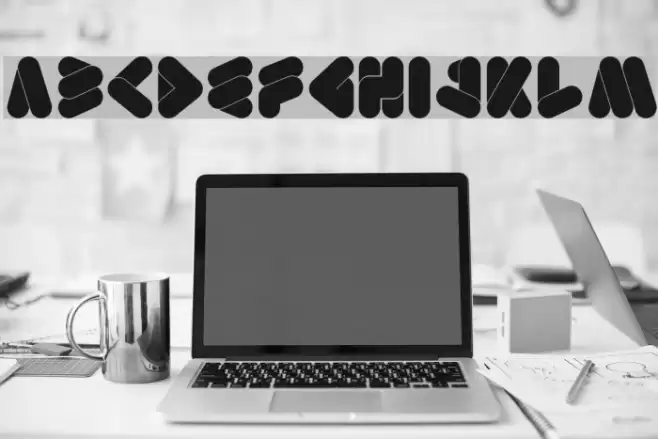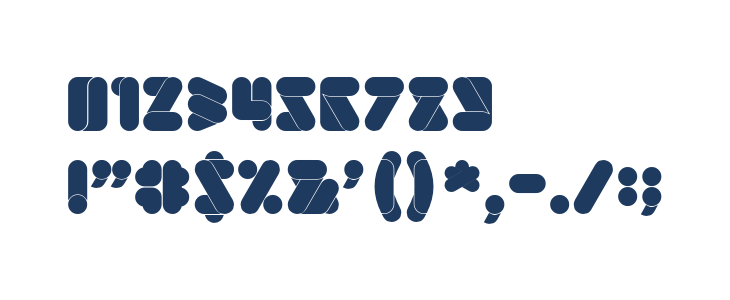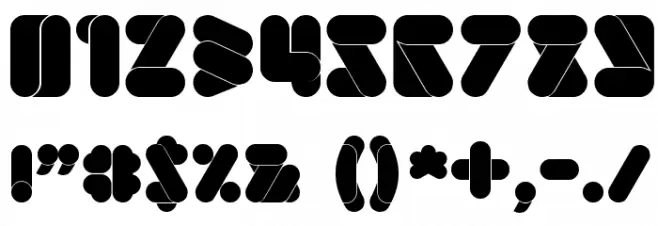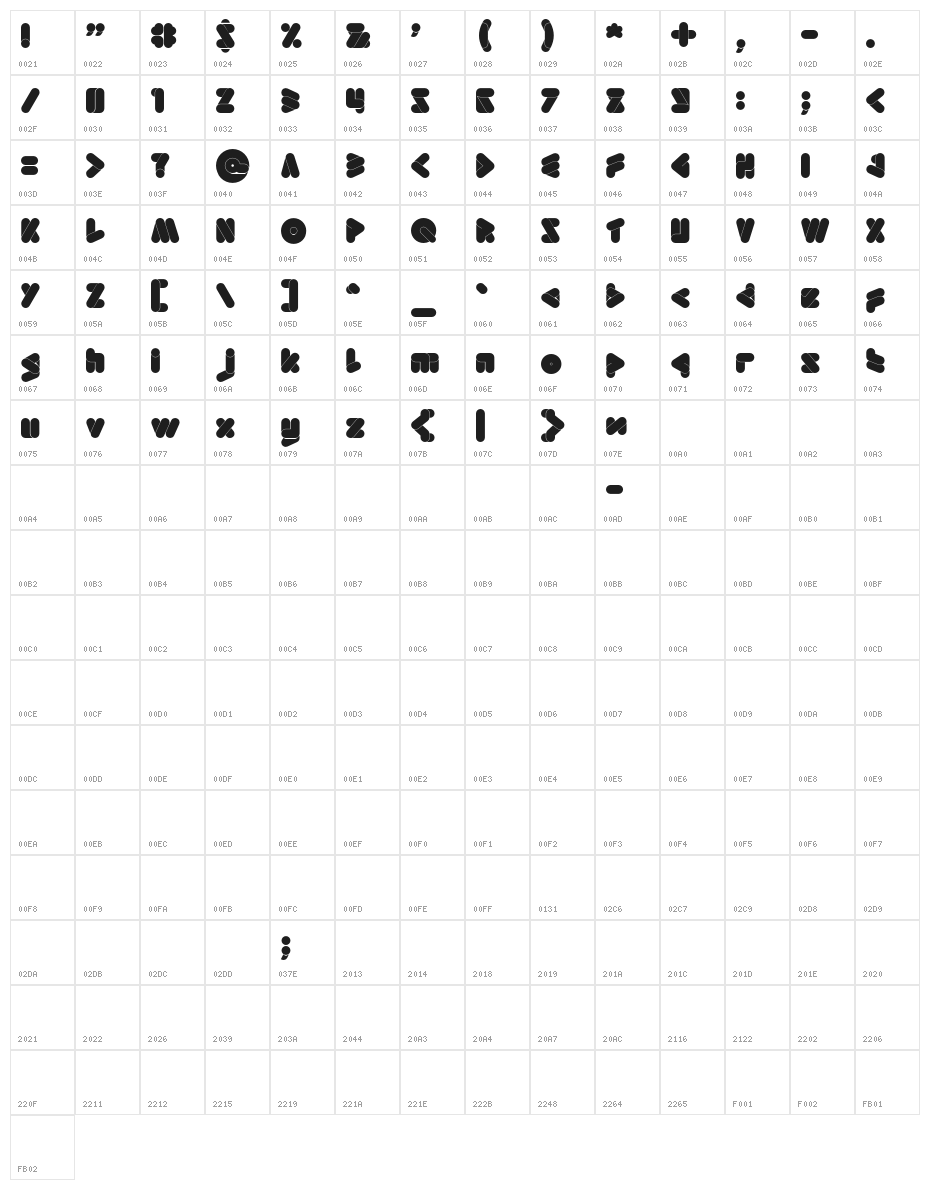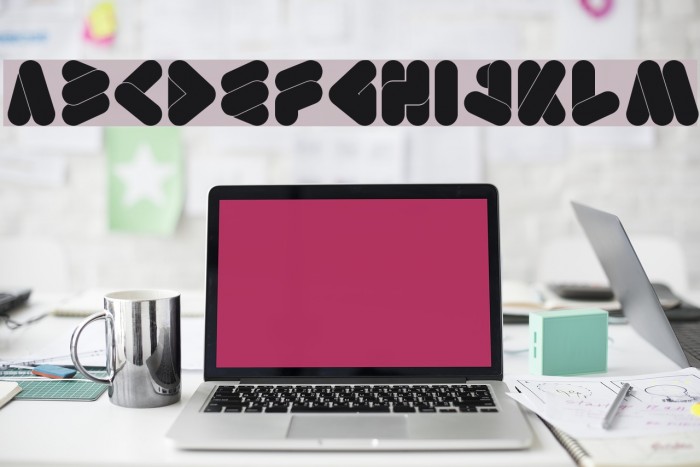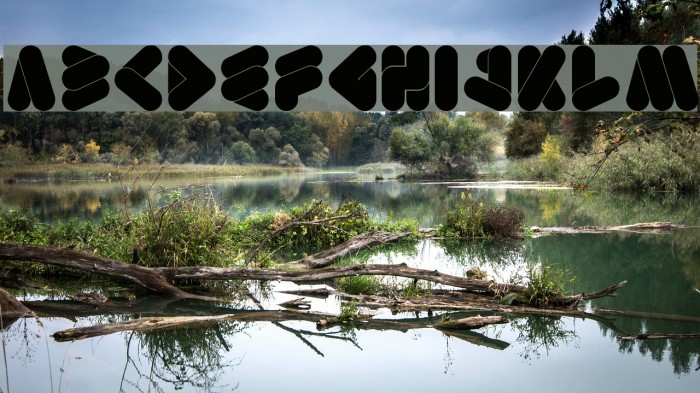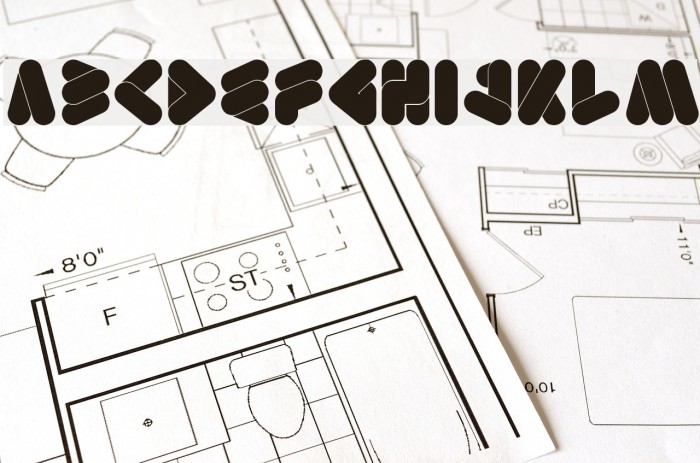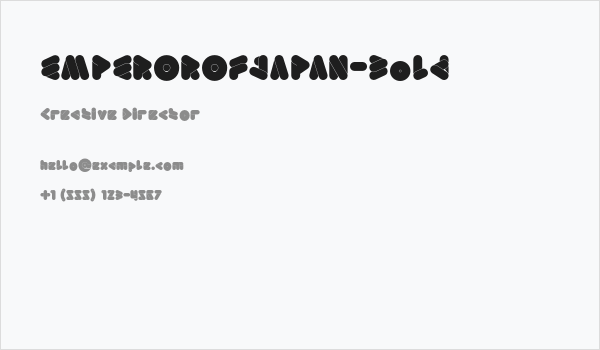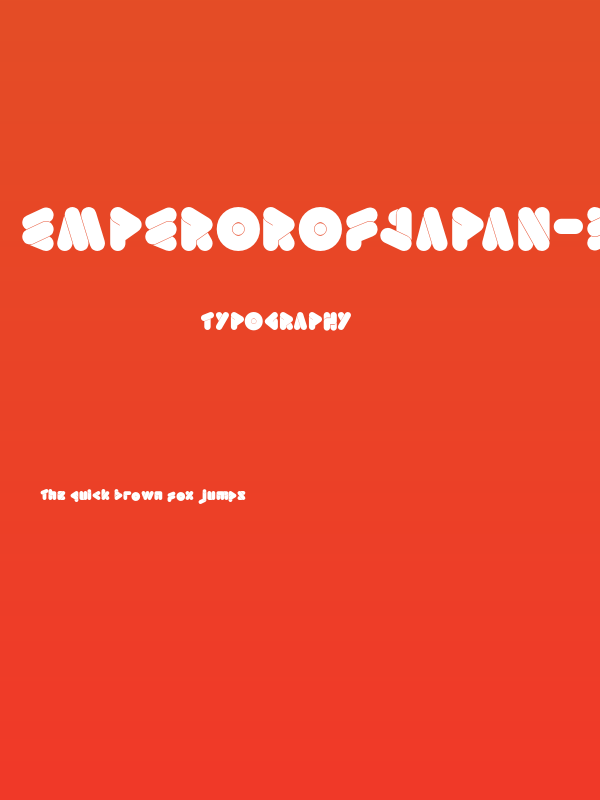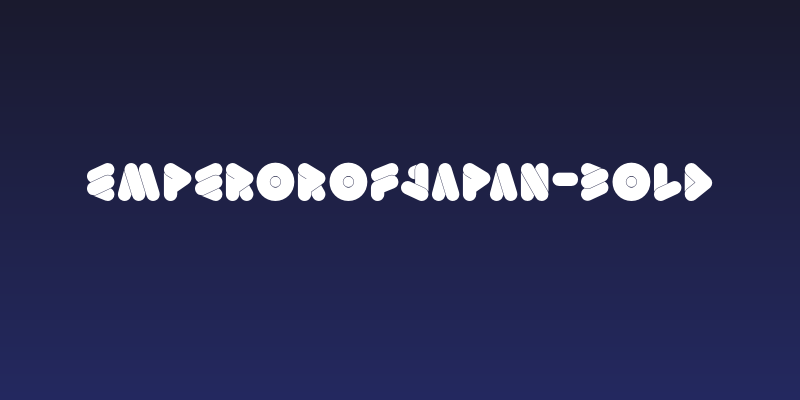
EMPEROROFJAPAN-Bold Font
EMPEROROFJAPAN-Bold Description
This font features a bold, geometric design with a futuristic and modern aesthetic. Each character is constructed with thick, rounded shapes that overlap, creating a sense of depth and dimension. The letters are uniform in height, contributing to a cohesive and structured appearance. The font's unique style is characterized by its heavy weight and solid presence, making it ideal for attention-grabbing headlines or logos. The circular and angular elements blend seamlessly, providing a dynamic and visually striking effect. Its distinctive style ensures that it stands out in any design, offering a bold statement with every use.
A bold, geometric font with a futuristic and modern aesthetic from Uncategorized fonts.
- Proposed Projects: Ideal for branding, logos, posters, and any project requiring a bold, modern look.